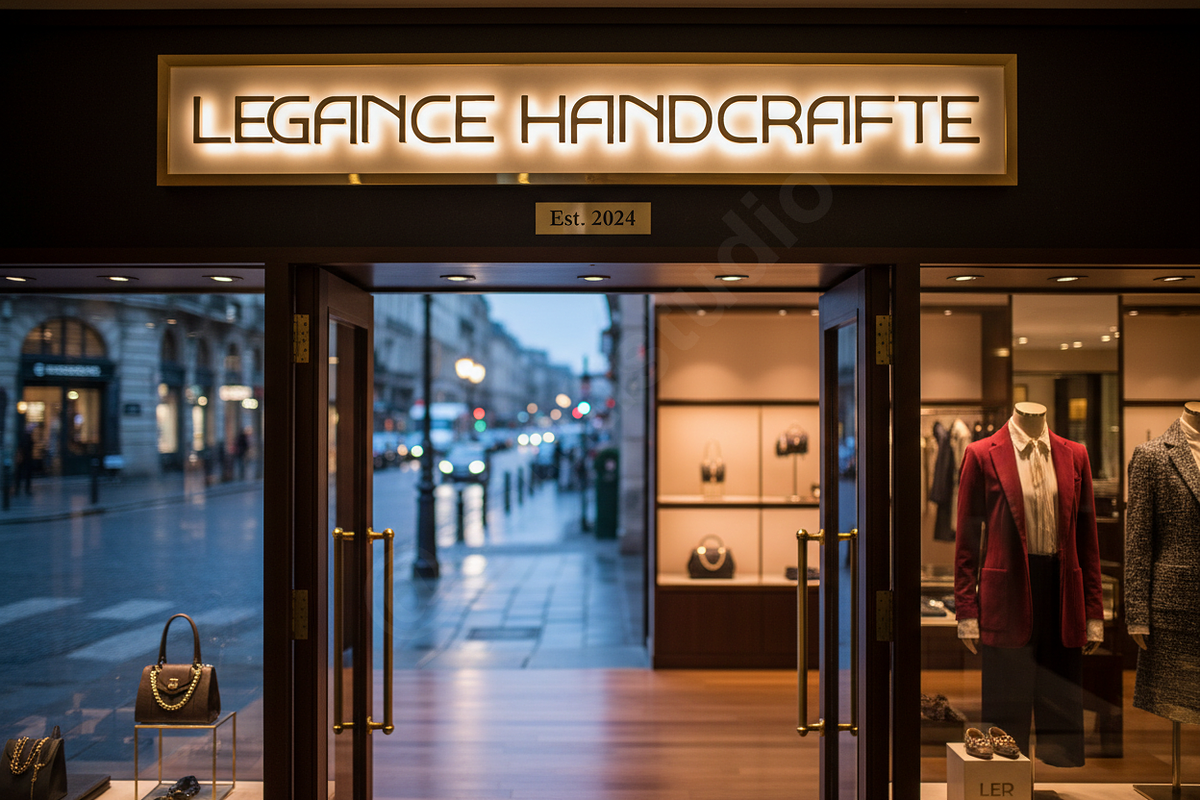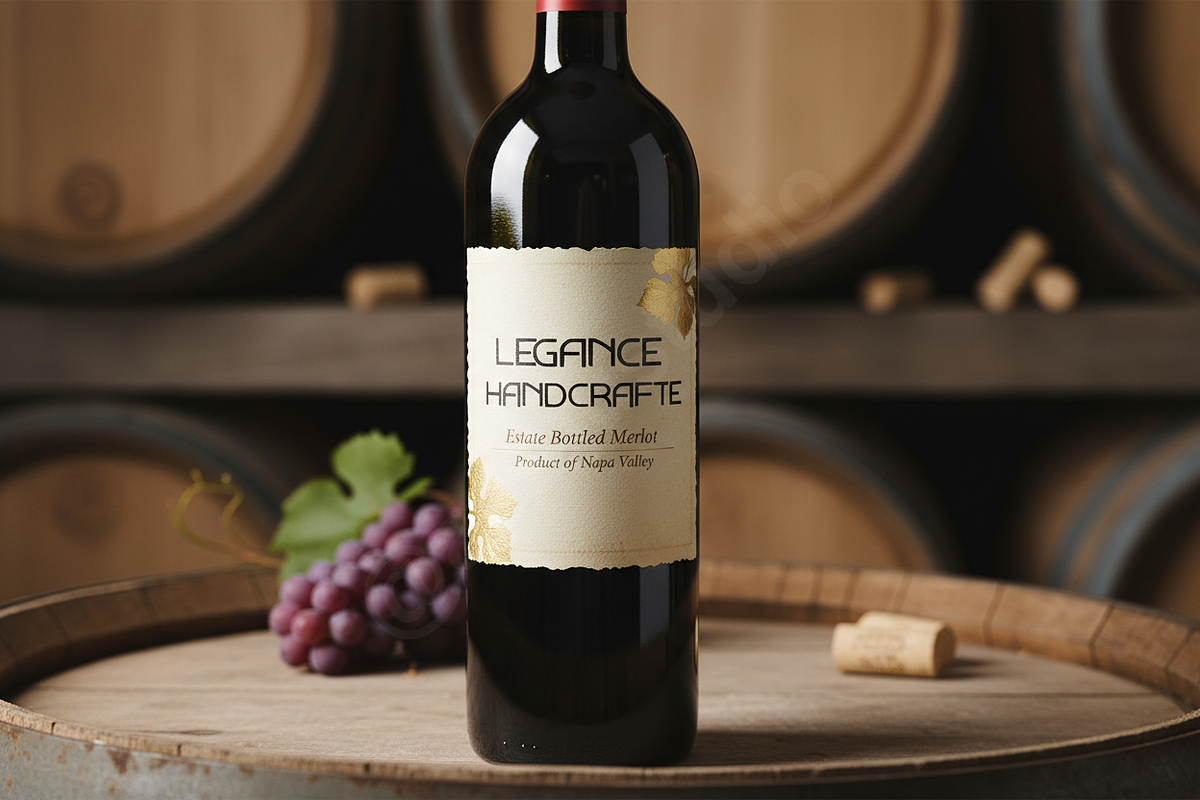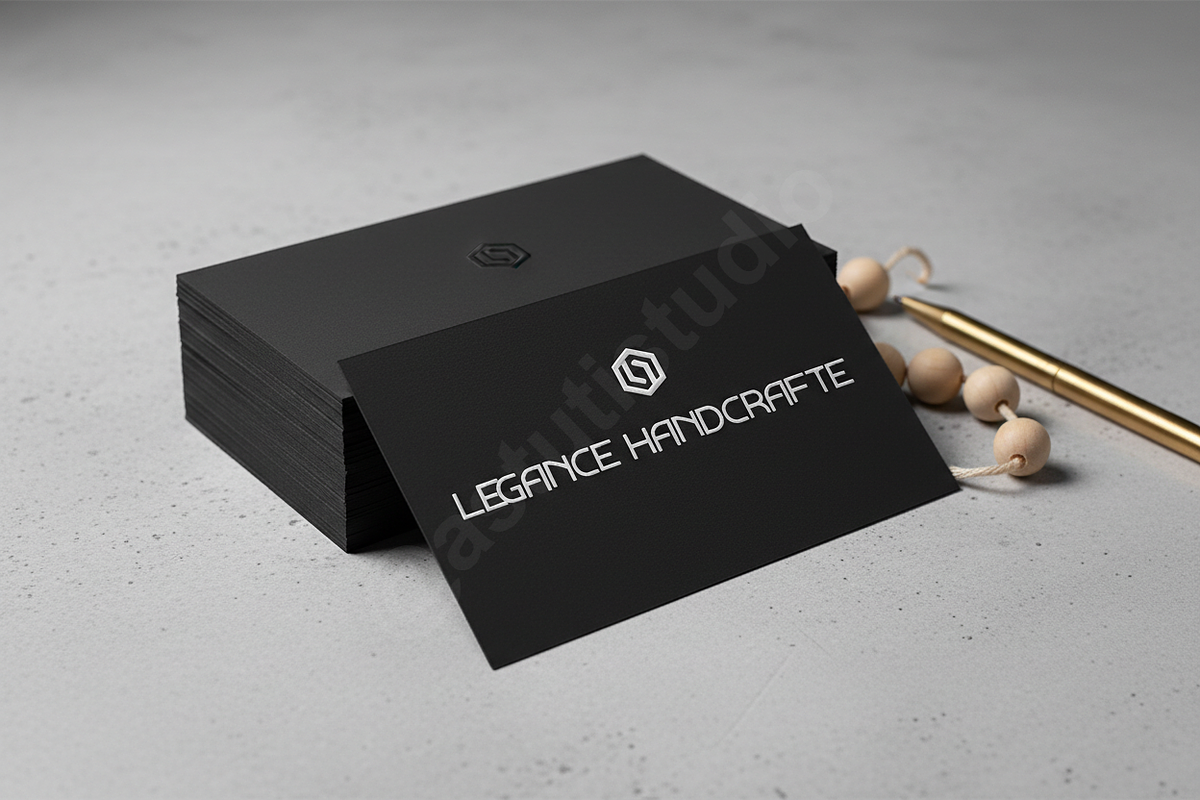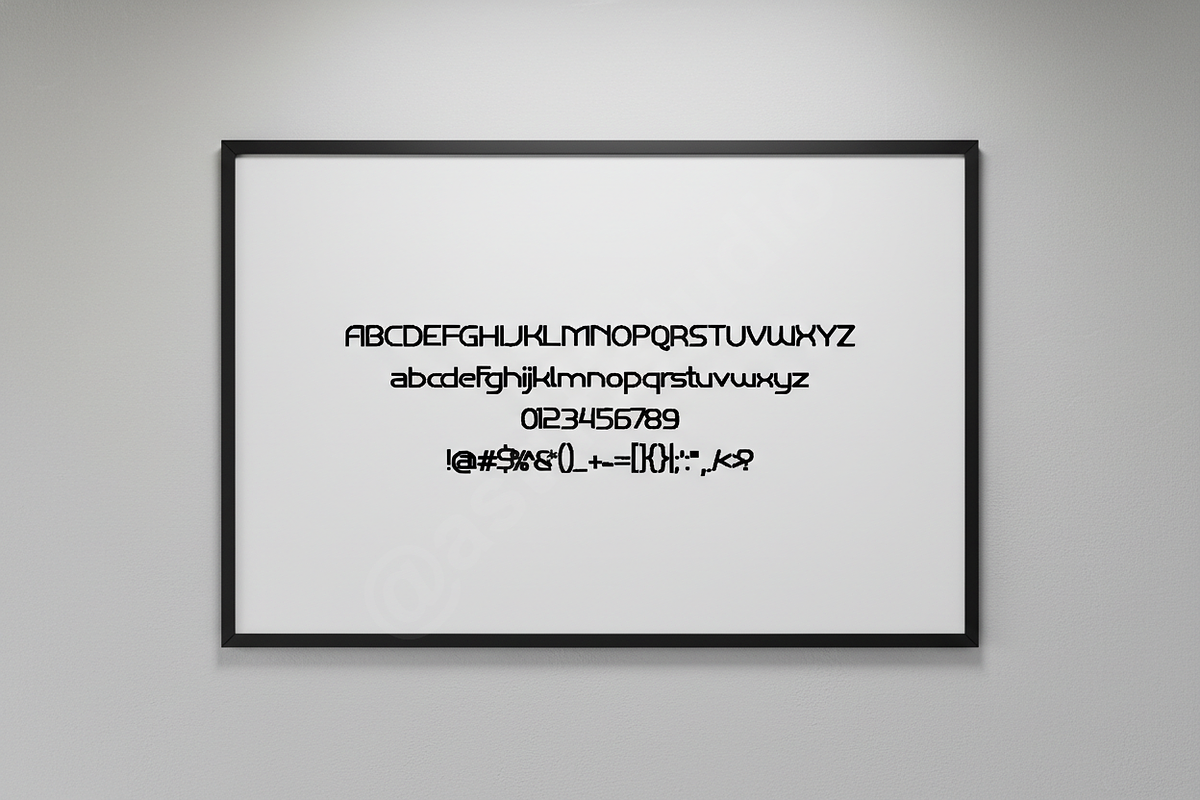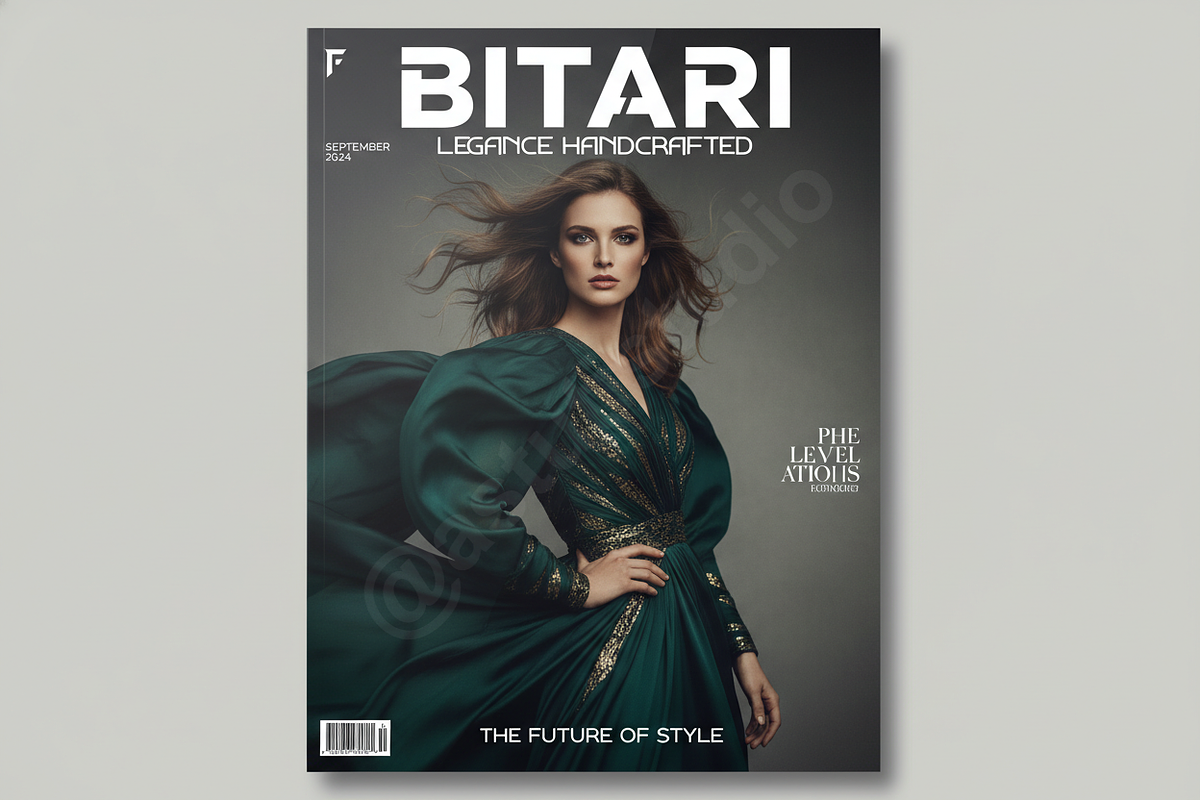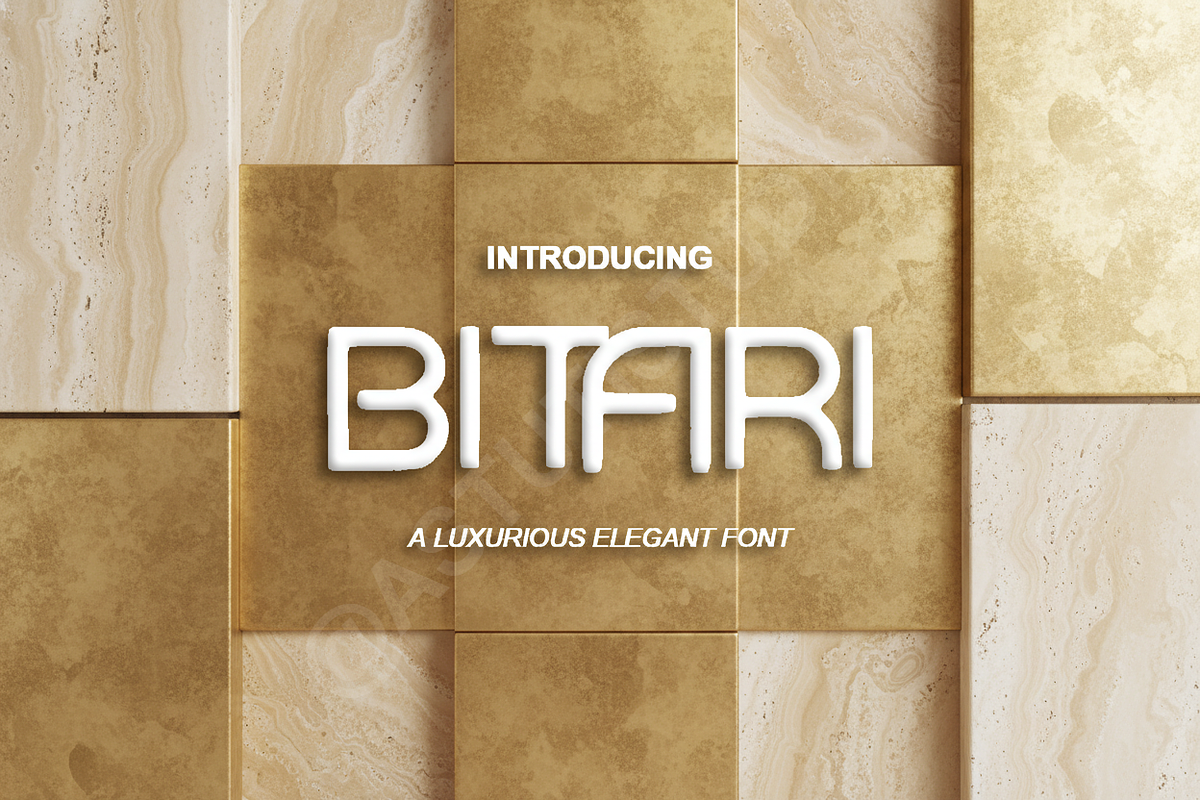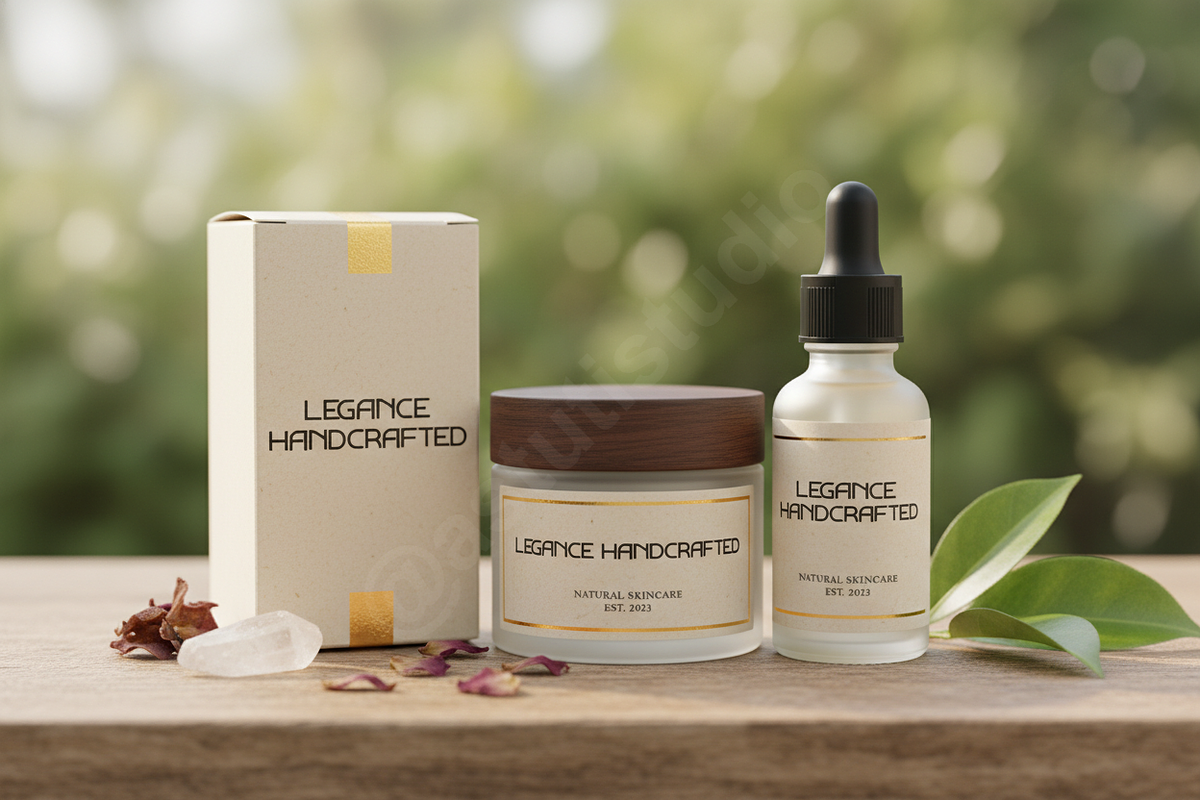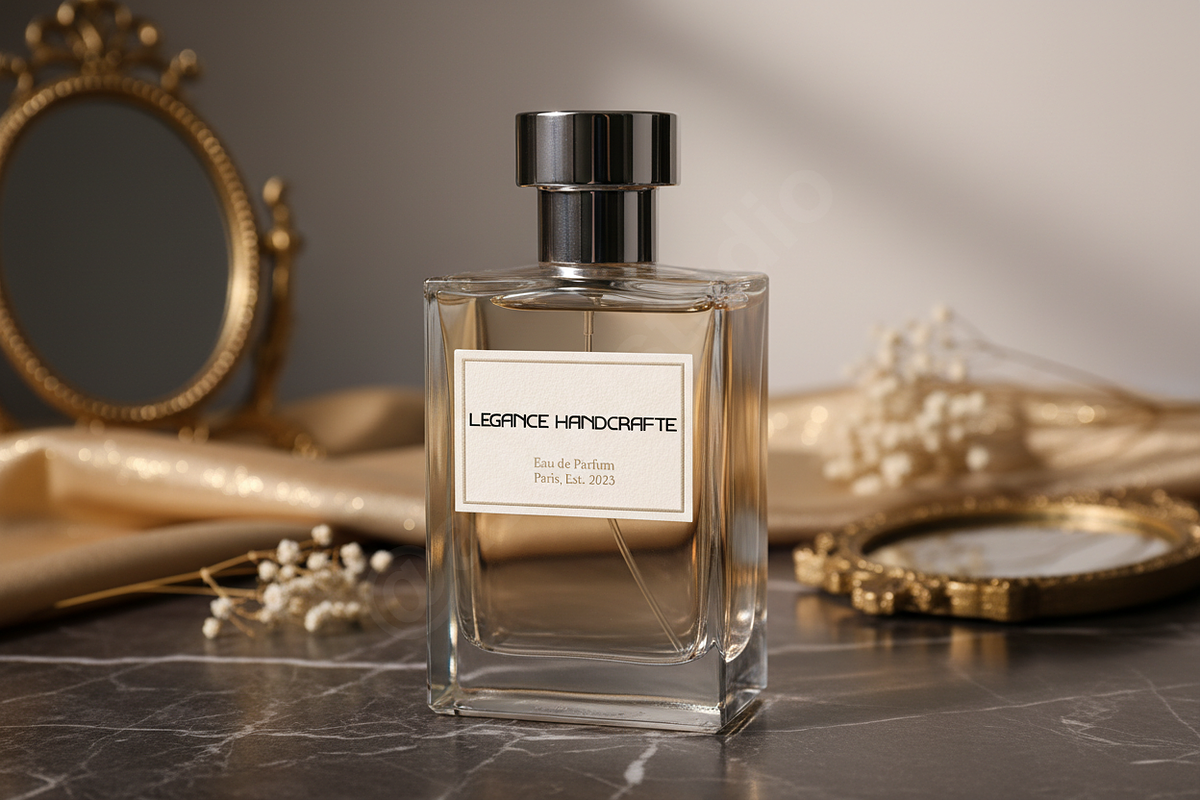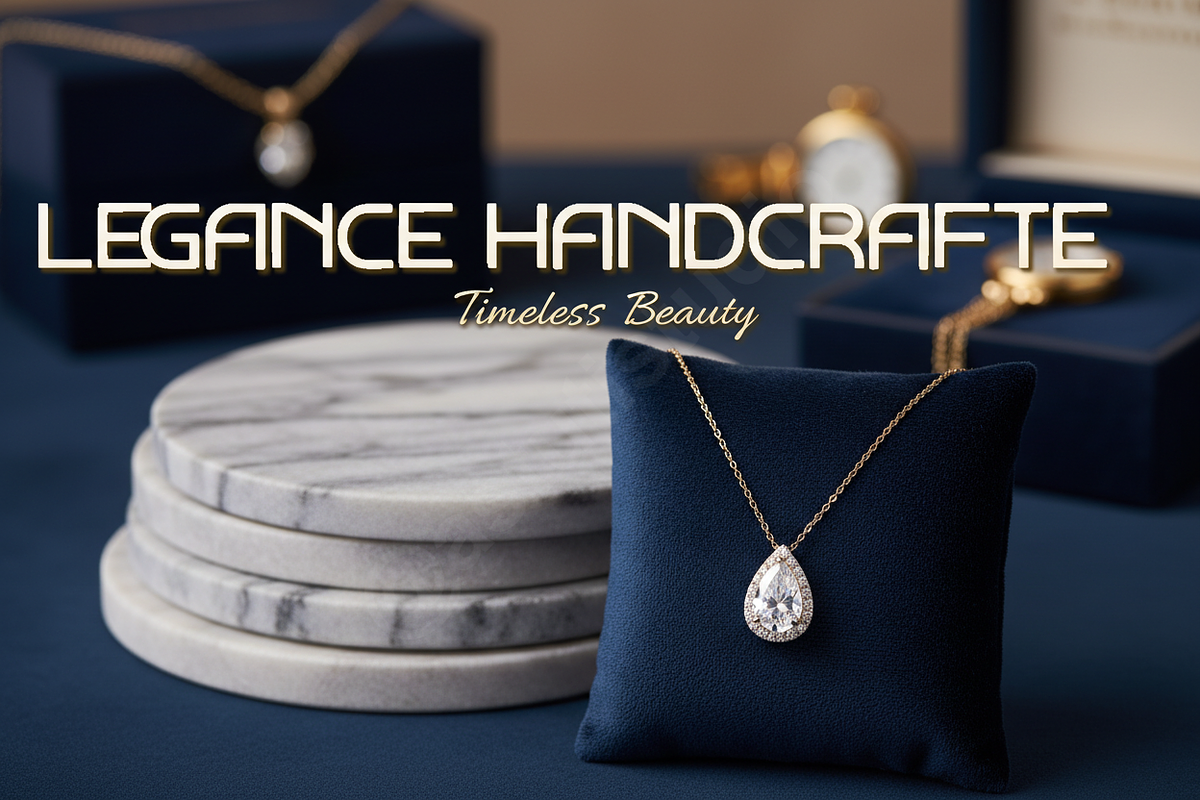
Bitari | Modern Timeless Serif Typef
Introducing Bitari—a sophisticated, high-contrast serif typeface designed for the discerning creative. Bitari embodies timeless elegance with a modern edge, making it the definitive choice for luxury branding, high-fashion editorial layouts, and impactful social media campaigns. Its meticulously balanced letterforms convey authority and refinement, ensuring your message is delivered with undeniable class.
Key Design Features
- Elegant High Contrast: Striking thick-to-thin strokes for maximum visual impact.
- Extensive OpenType Features: Includes over 50 unique ligatures, stylistic alternates, and contextual characters to customize titles and logos.
- Multi-Language Support: Comprehensive glyph coverage for global brand applications (A-Z, a-z, 0-9, Punctuation, Accents).
- Kerning Precision: Professionally optimized kerning for flawless headline and body text readability.